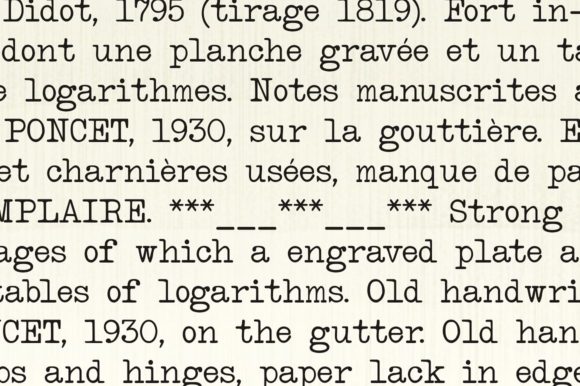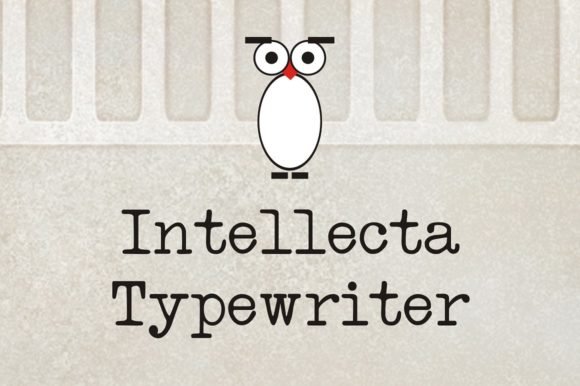
Introduction to Intellecta Typewriter Font
The Intellecta Typewriter is an serif font in a typewriter style.
Key Features of Intellecta Typewriter Font